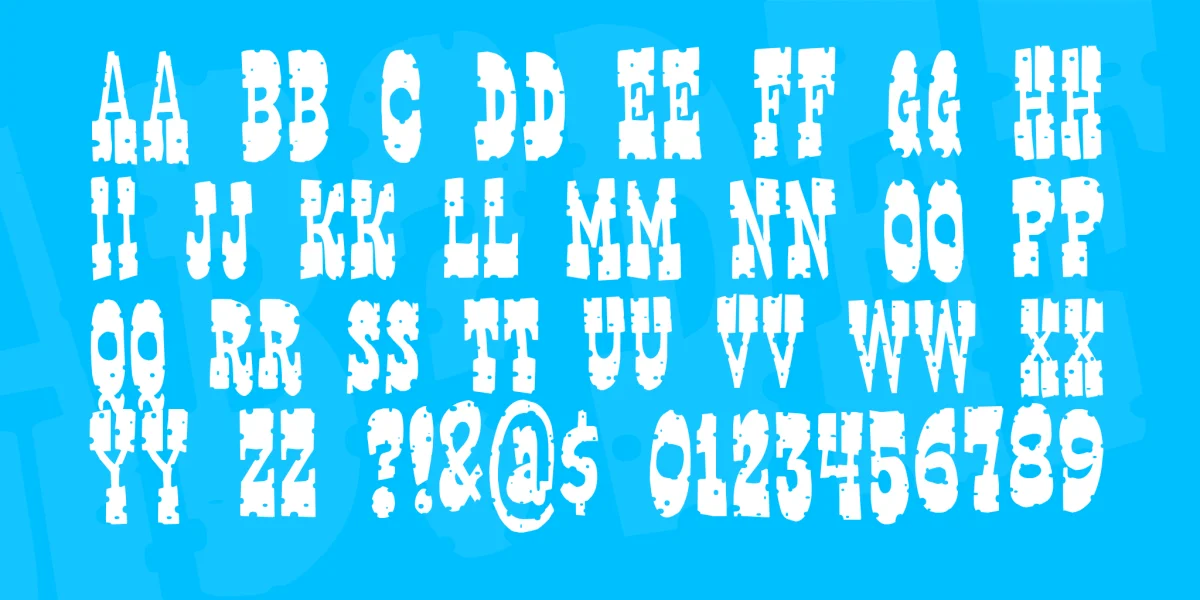
A salloon kinda font. This font originally came as a clean font, but I thought it looked more western-like with bulletholes! Great for those "wanted" posters!